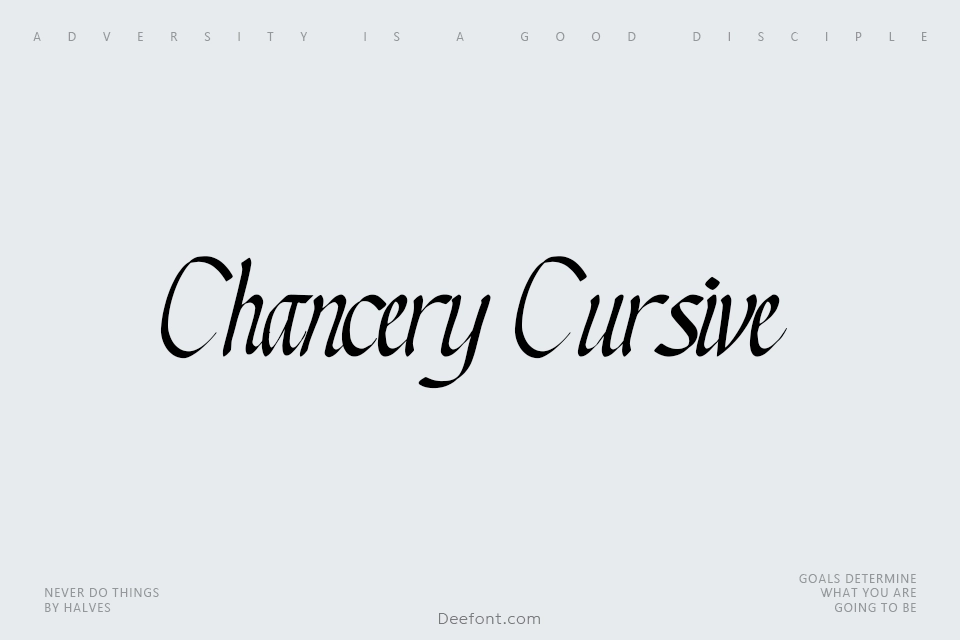
Chancery Cursive Font
Chancery Cursive is an elegant and flowing cursive font with beautiful calligraphic strokes, featuring ornate uppercase letters and connected lowercase characters. Ideal for formal applications including wedding invitations, certificates, elegant branding projects, and decorative typography. The font maintains smooth sweeping strokes throughout its characters, delivering a sophisticated aesthetic that enhances formal and elegant designs. With 81 glyphs and consistent italicized styling, it provides a cohesive look suitable for headlines, invitations, and decorative text applications.